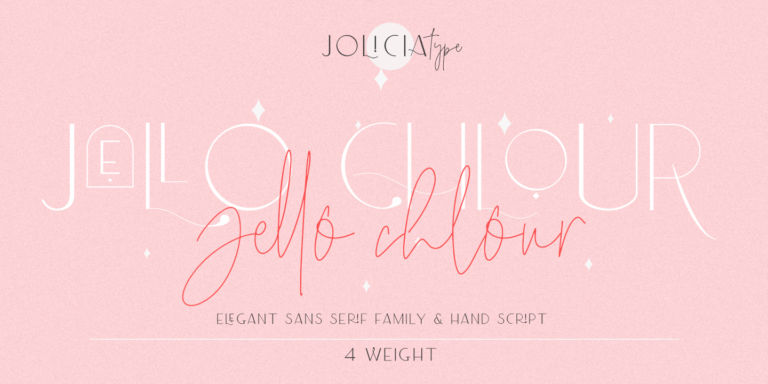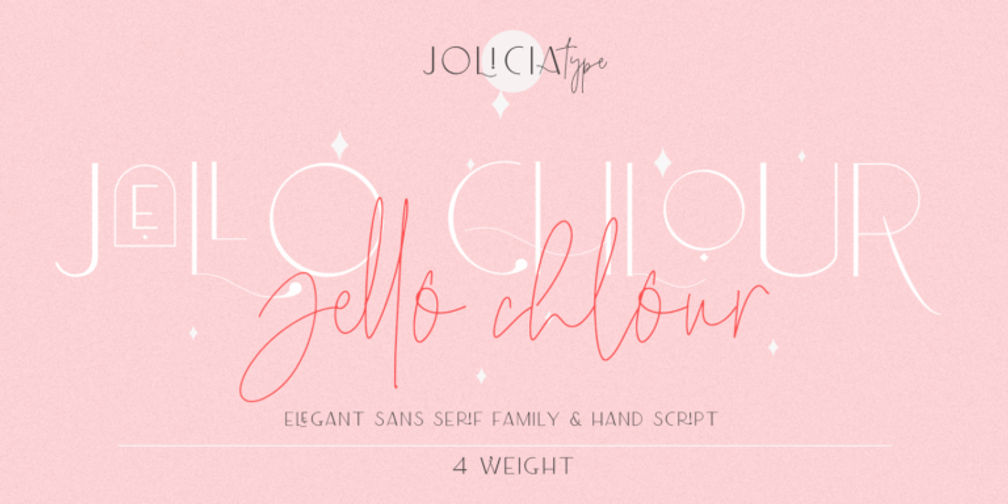
Jello Chlour
Say hello for our first debut “Jello Chlour ” with Modern Elegant Style this is perfect for branding, logos, invitation, masterheads and more.
Jello Chlour Features :
- Multilanguange
- Ligatures
- Alternates
- PUA Encoded